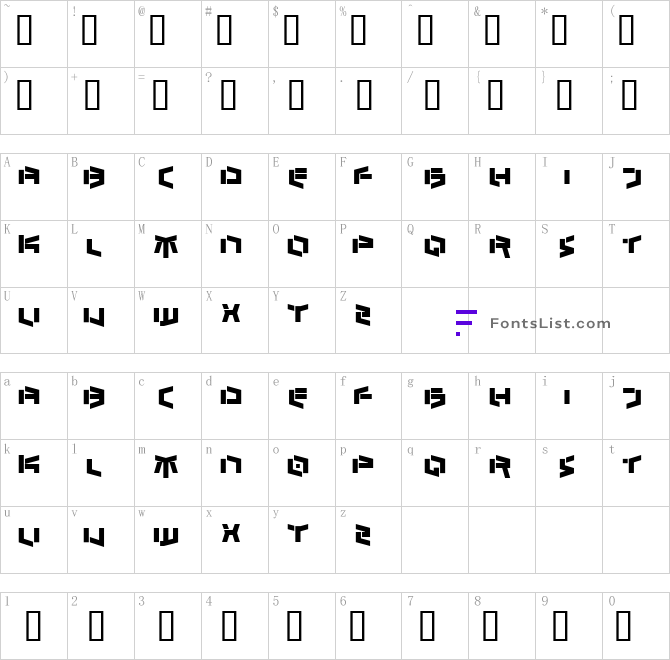
- Font Name:Bedlam
Bedlam-absolute.ttf is a very beautiful artistic font, Bedlam-absolute.ttf is widely used in the design and printing of various books and pictures,Bedlam-absolute.ttf has a strong visual impact,Bedlam-absolute.ttf is a commonly used font in newspapers, magazines and books, and is used in posters, e-commerce Poster design, store design, logo design, font design and other fields.Bedlam-absolute.